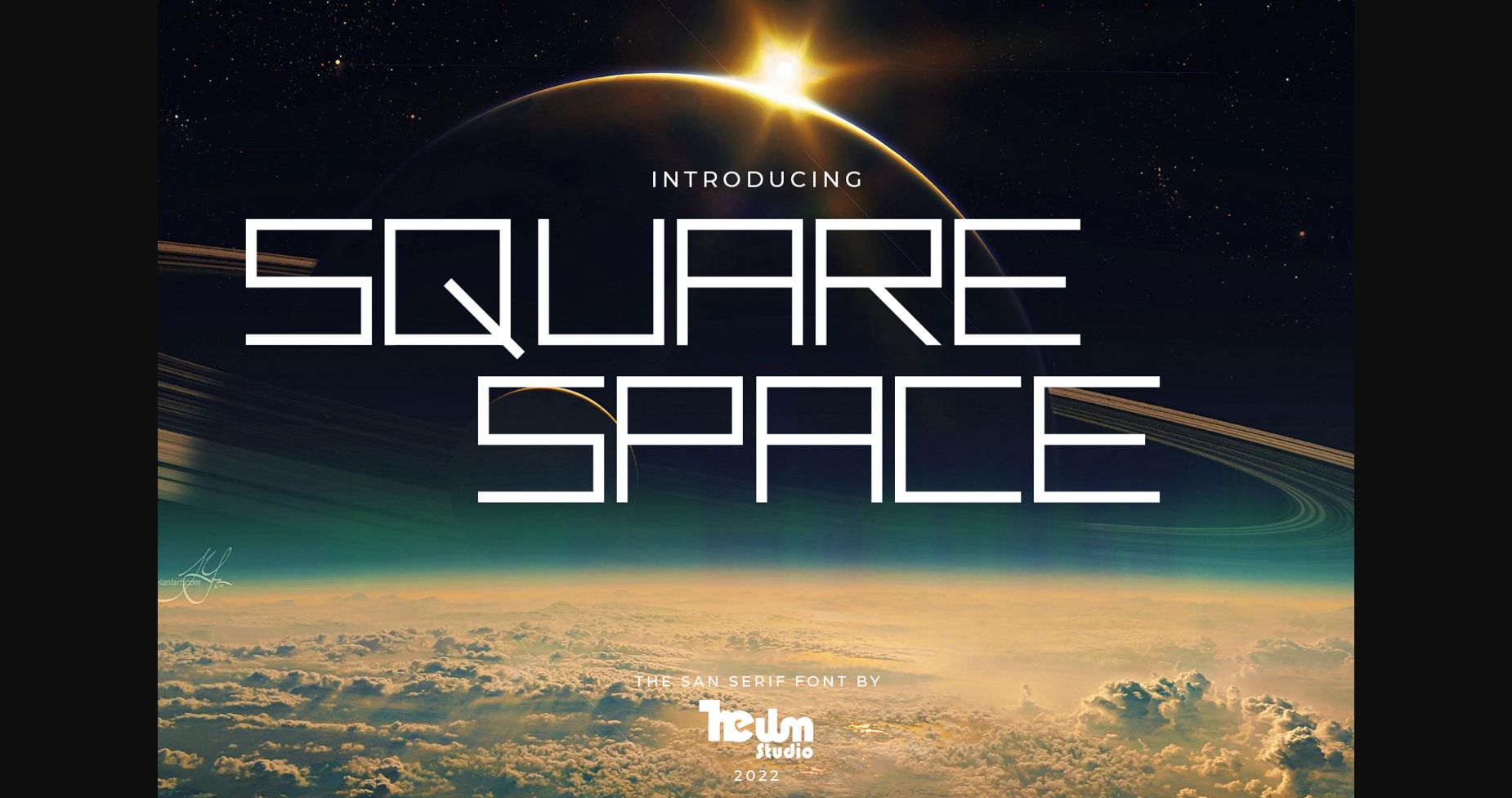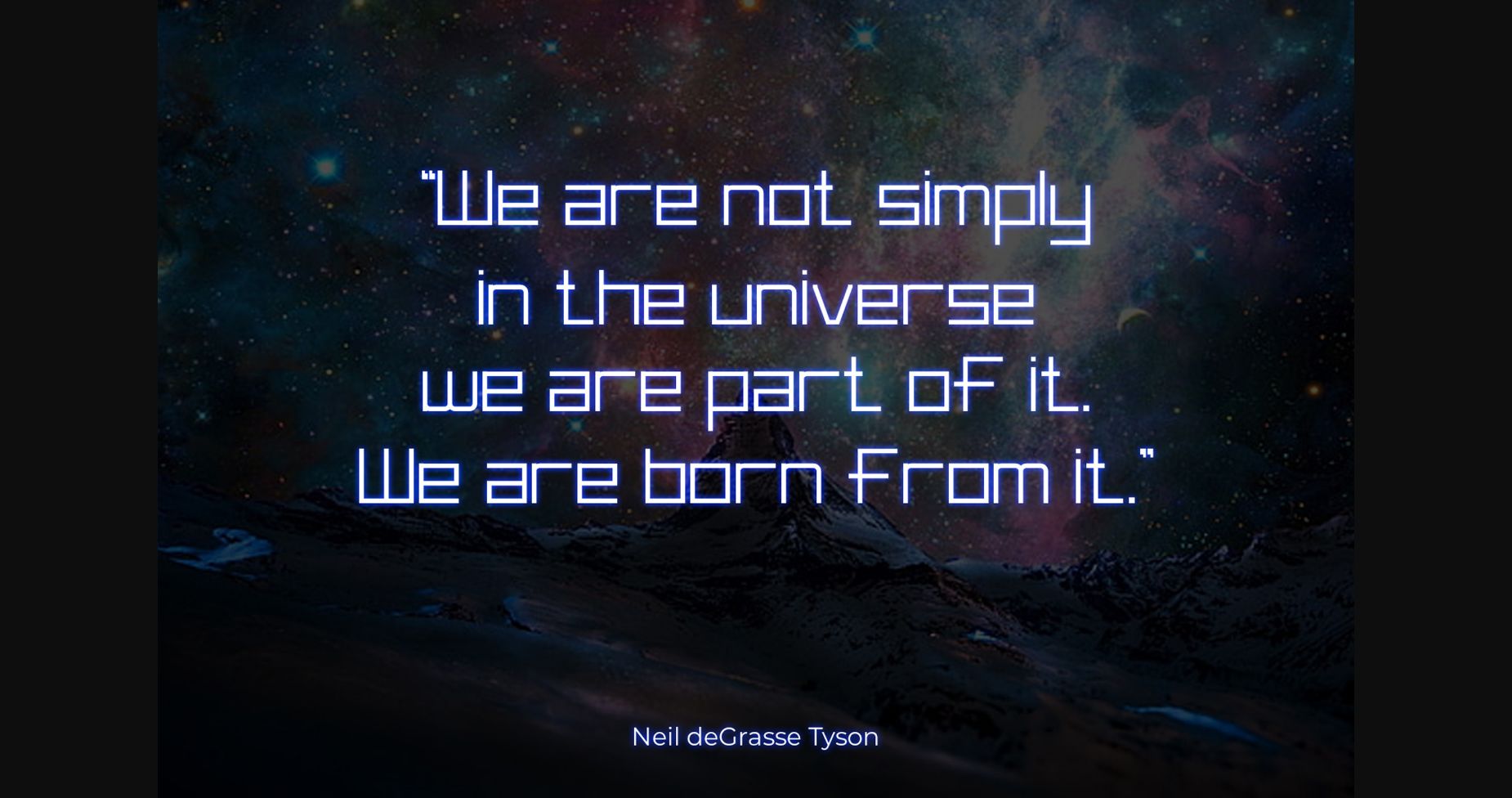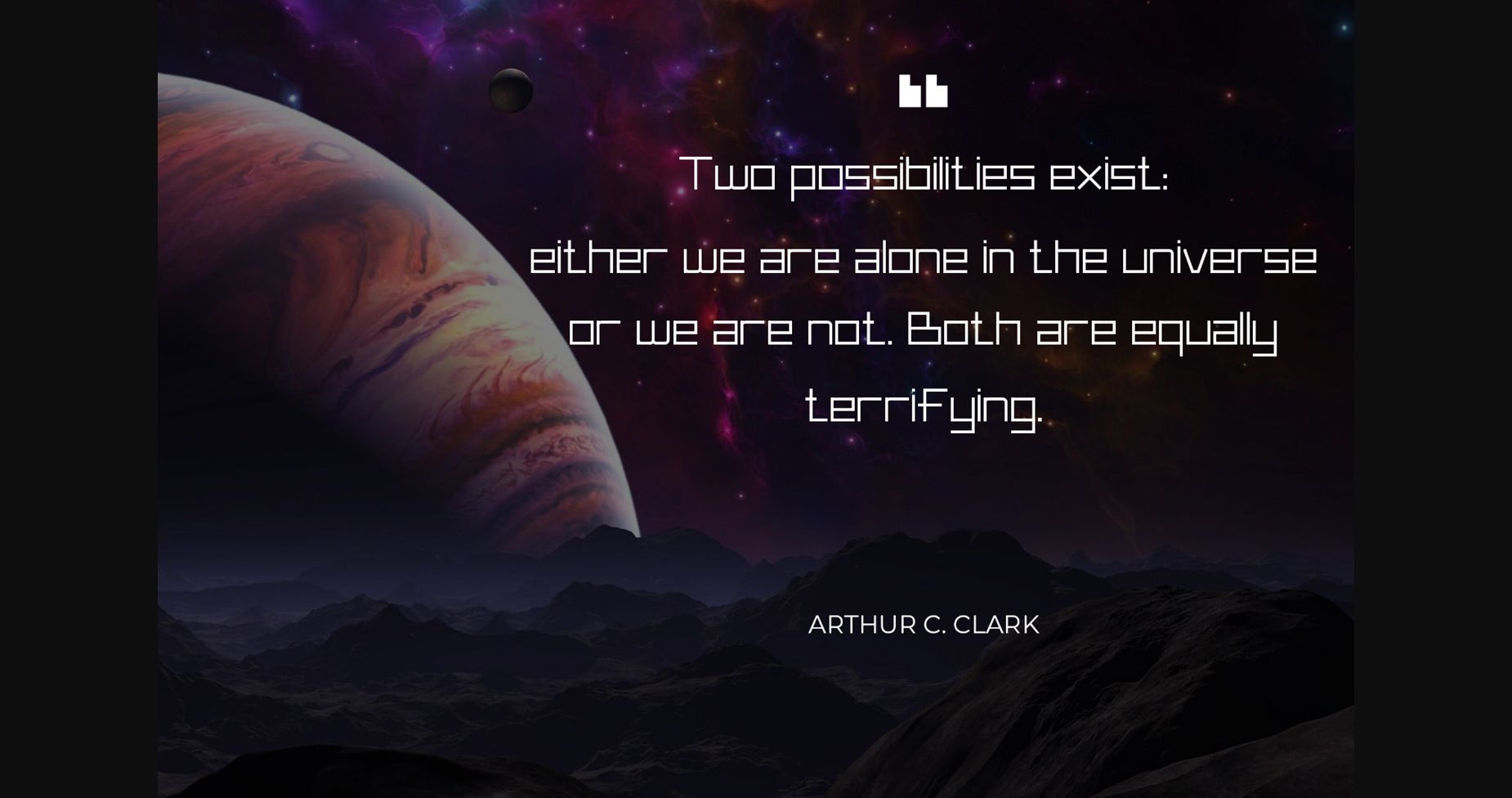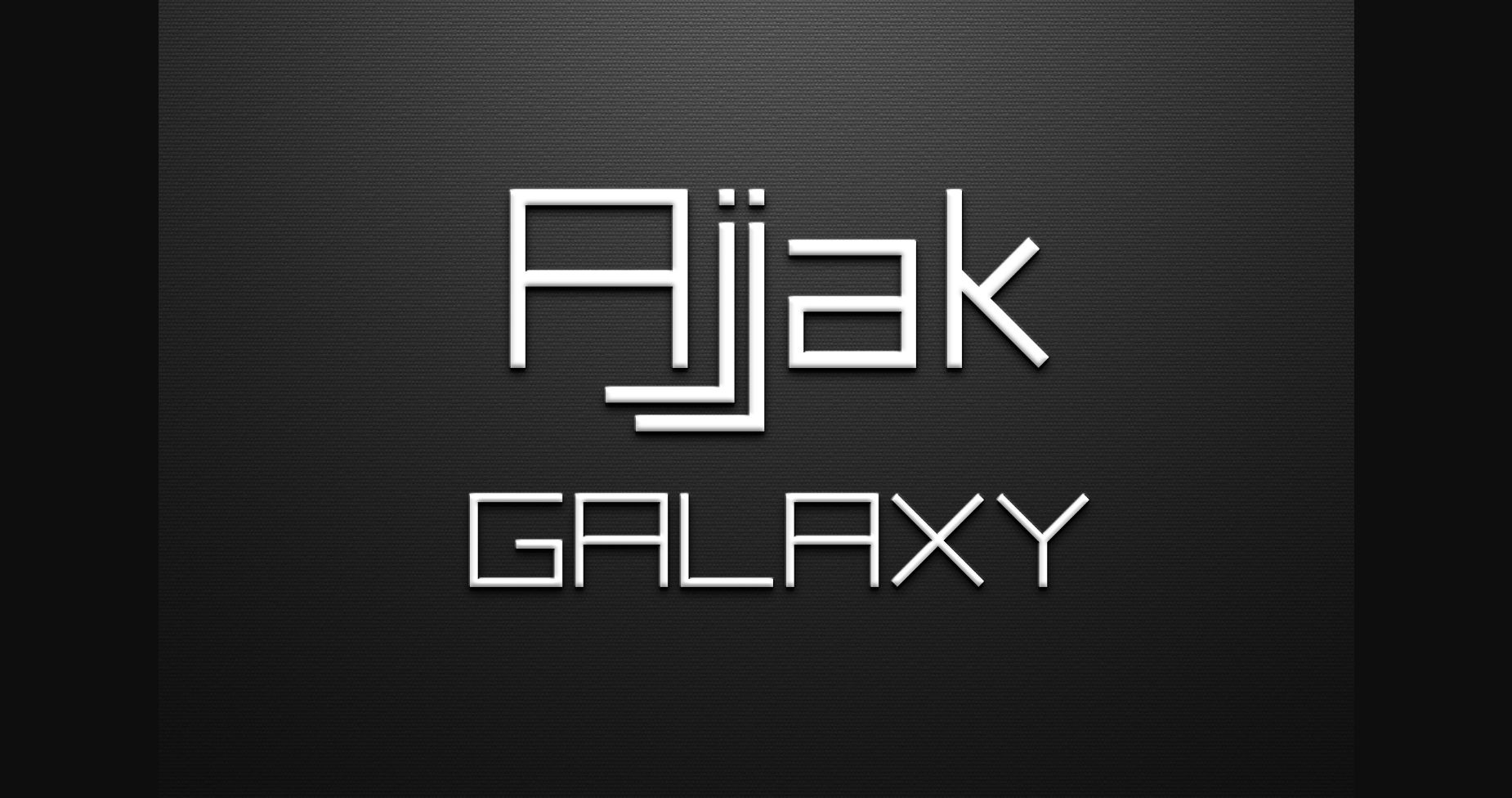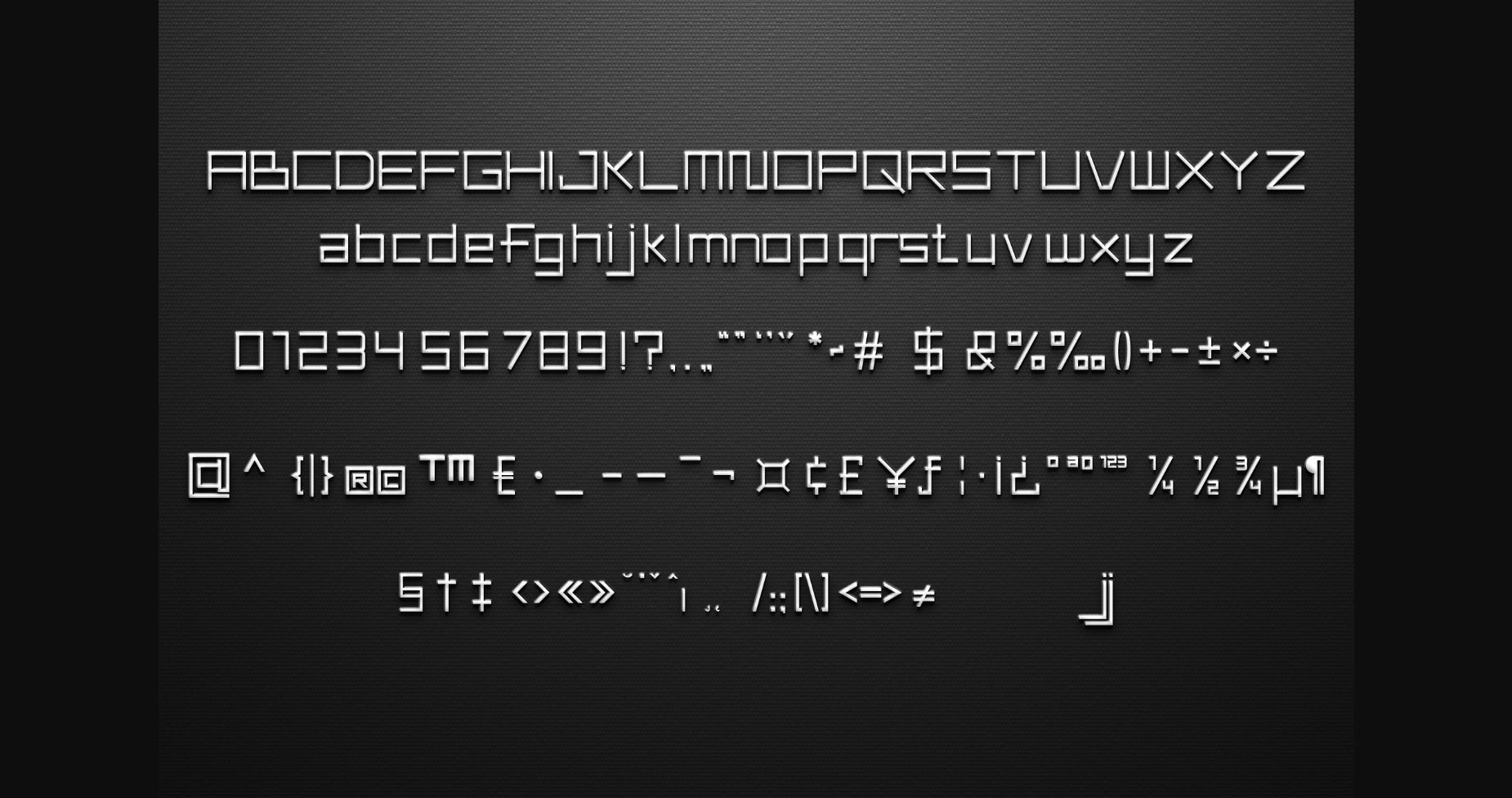
Square Space Font
About Square Space Font
Square Space is a modern font with a design that reflects the future and sophistication. This font was inspired by today’s advanced technology and will be more sophisticated in the future. It will add a luxury spark to any design project that you wish to create!